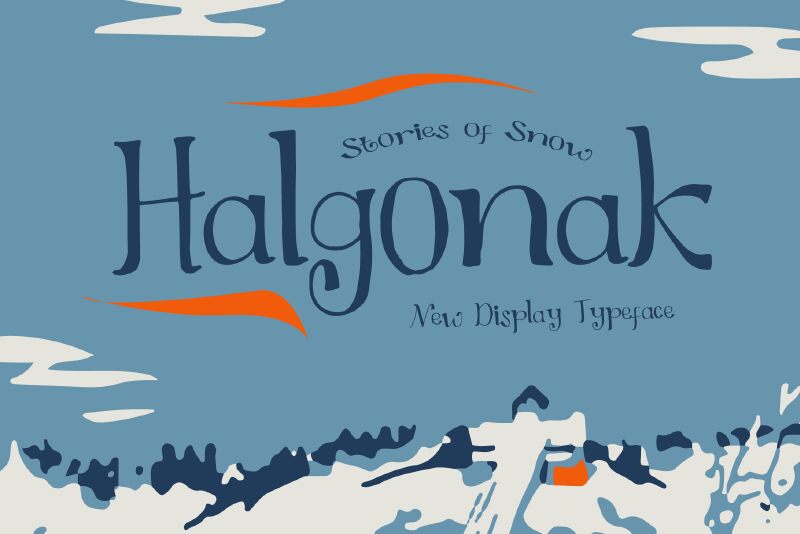
Halgonak is a font with fresh and lively theme. With fun hand-writing style, this typeface will give a cheerful and personal touch for your non-formal designs but can also be elegant for your formal ones.
Halgonak Font gives a beautiful look to a variety of branding projects, logos, wedding designs, social media posts, advertisements, and so much more. Let your imagination run free!
Halgonak